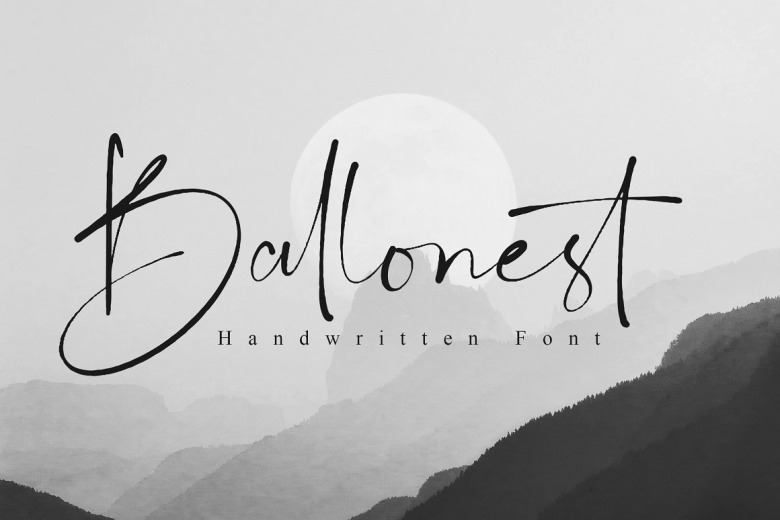
Ballonest Font
Ballonest is a hand written font that it’s perfect for beautiful logos, branding projects, decals, printing products – wallpapers or stationery &advertisements. I like its unique touch and very nice handwriting. For real, from my soul to yours. Ballonest is suitable for photography, watermark, social media posts like advertisements & promotions logos & branding, invitation, product designs, label, stationery, wedding designs product packaging, special events or anything that need handwriting taste.
Ballonest ~ is a handmade, all characters created by brush. All in one set A-Z available and with up to 107 stylistic ligatures! Curious to see what comes with this beautiful bundle? All font files are available in TTF & OTF font formats. Supporting all languages that JSON specification supports.
Ballonest Handwritten Script Font